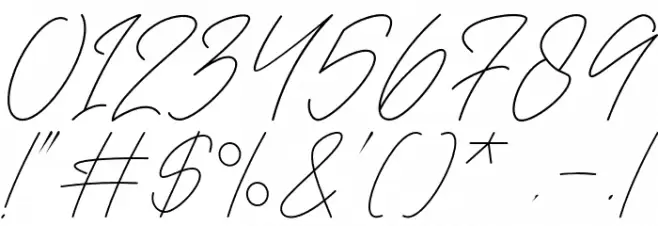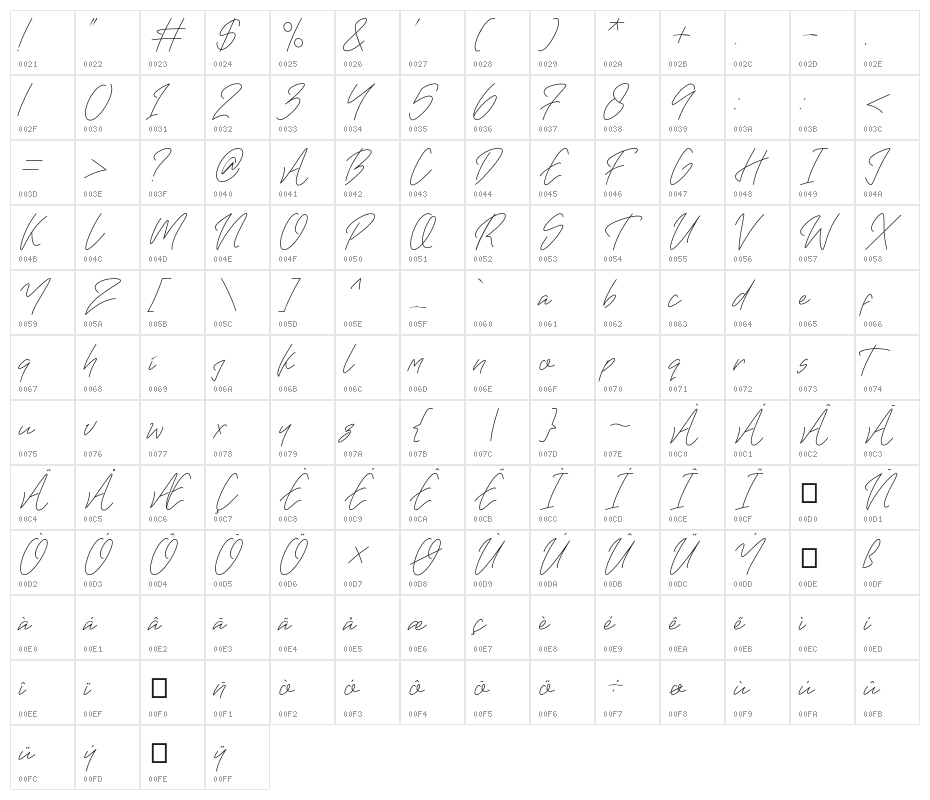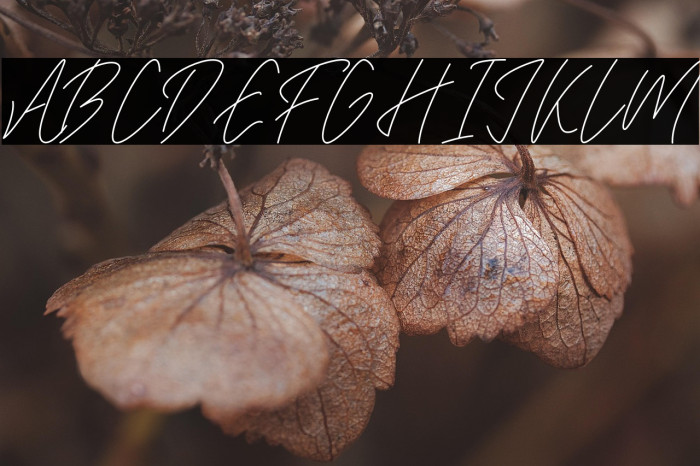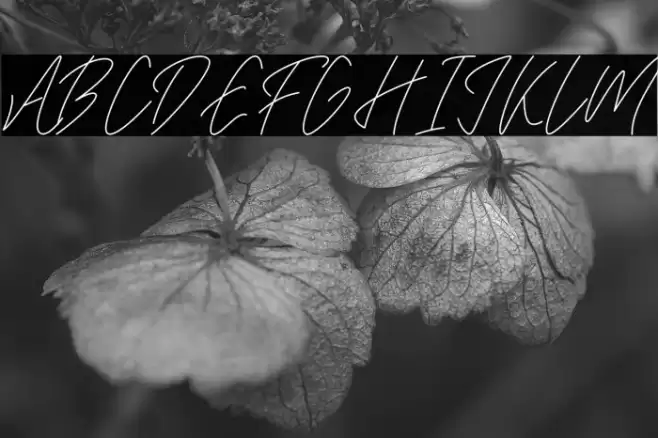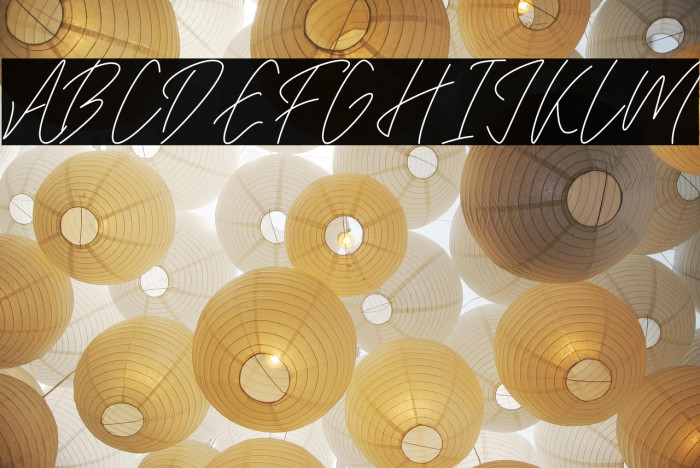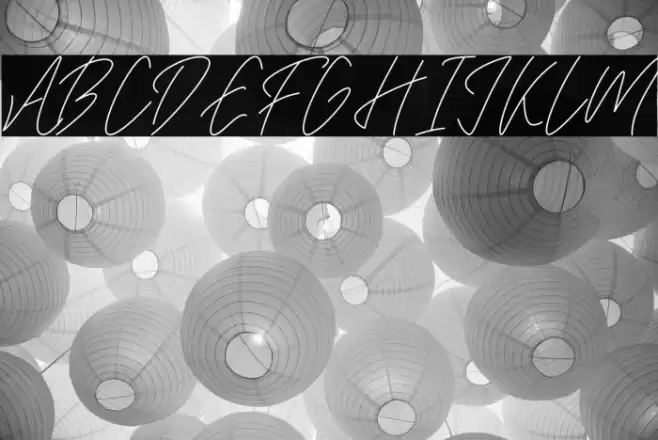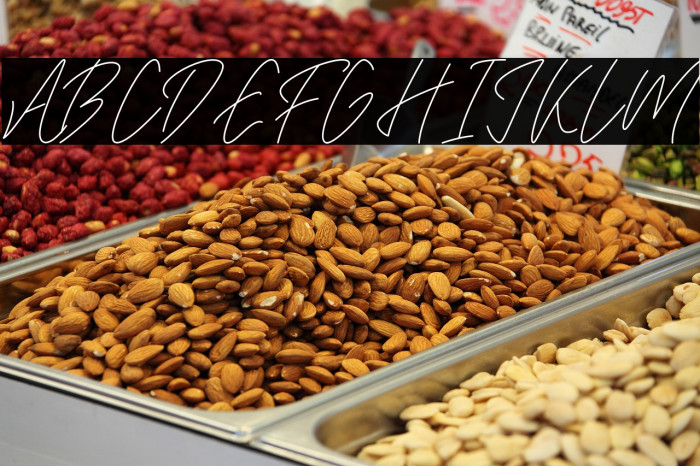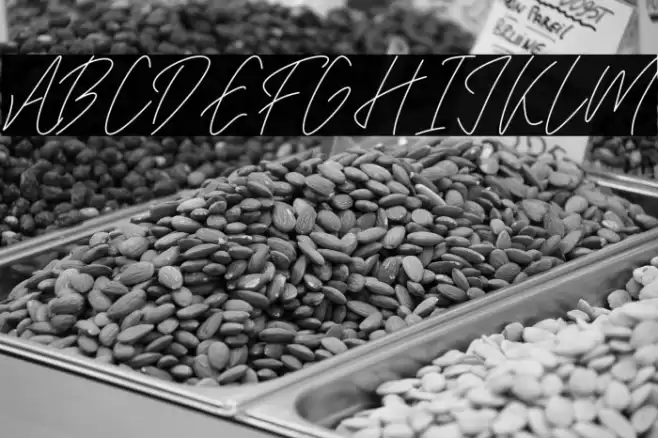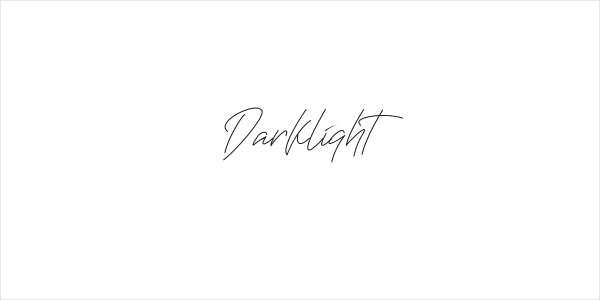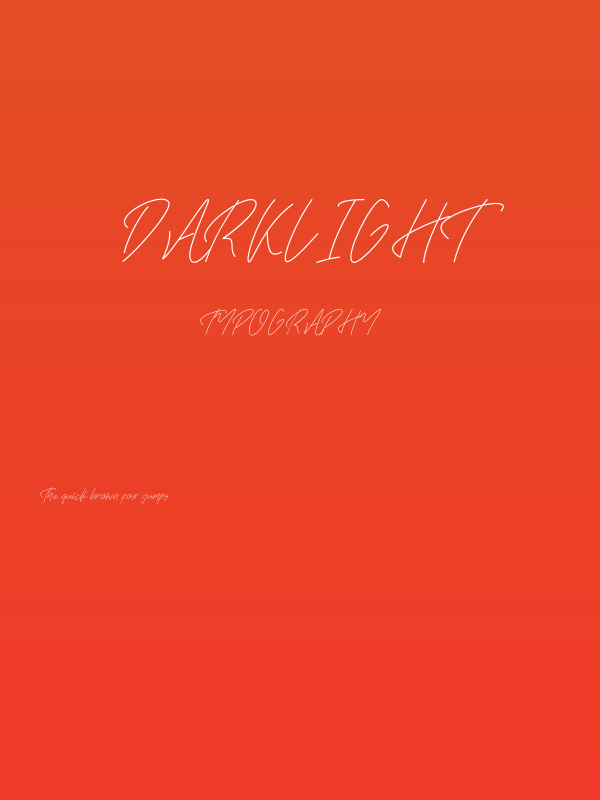
Darklight Font
Darklight Description
This font exudes a dynamic and fluid style, characterized by its cursive, handwritten appearance. The letters are elegantly elongated with a slight slant, giving it a sense of motion and grace. The strokes are consistent in thickness, maintaining a medium contrast that adds to its legibility while preserving its artistic flair. The uppercase letters are distinctively taller and more pronounced, while the lowercase letters maintain a smooth flow. Numbers and special characters are crafted with the same attention to detail, ensuring a cohesive look across all elements. This font is perfect for projects that require a personal touch or an artistic edge.
| Use Case | Logos, Invitations, Artistic Projects |
| Proposed Projects | Ideal for wedding invitations, personal branding, artistic posters, and creative projects that require a personal touch. |